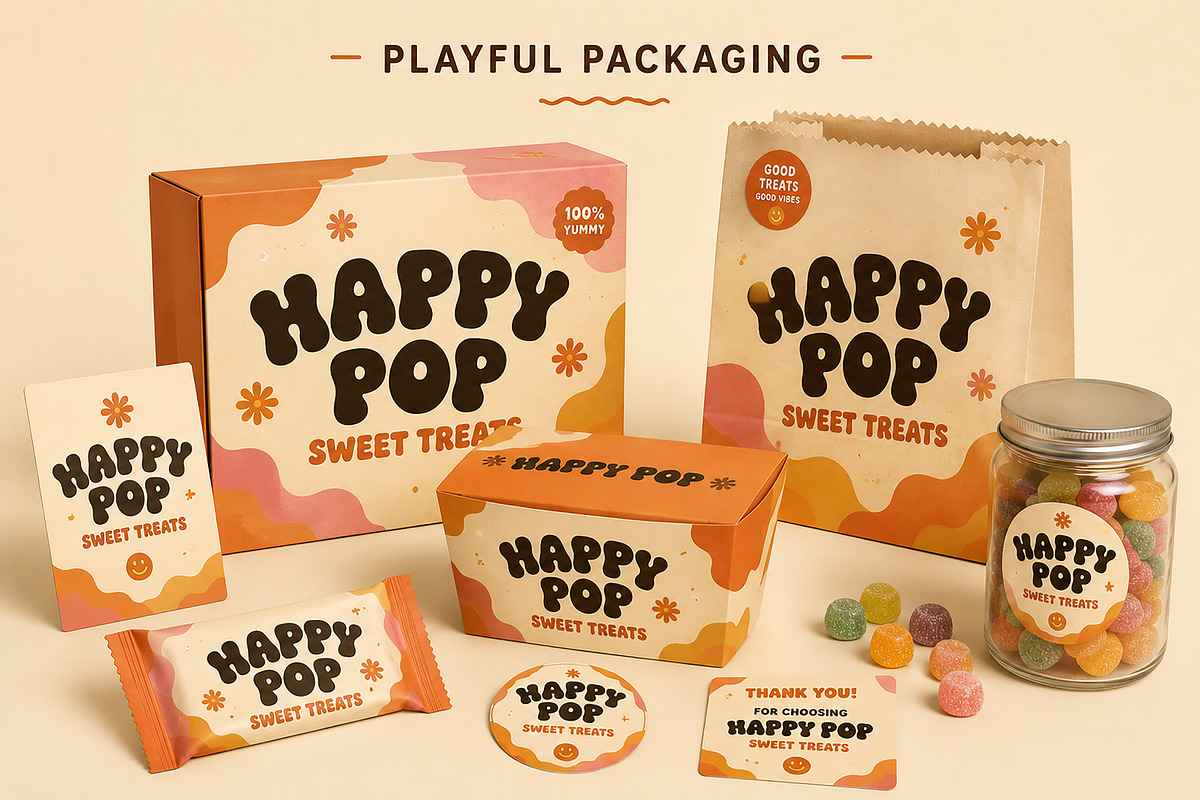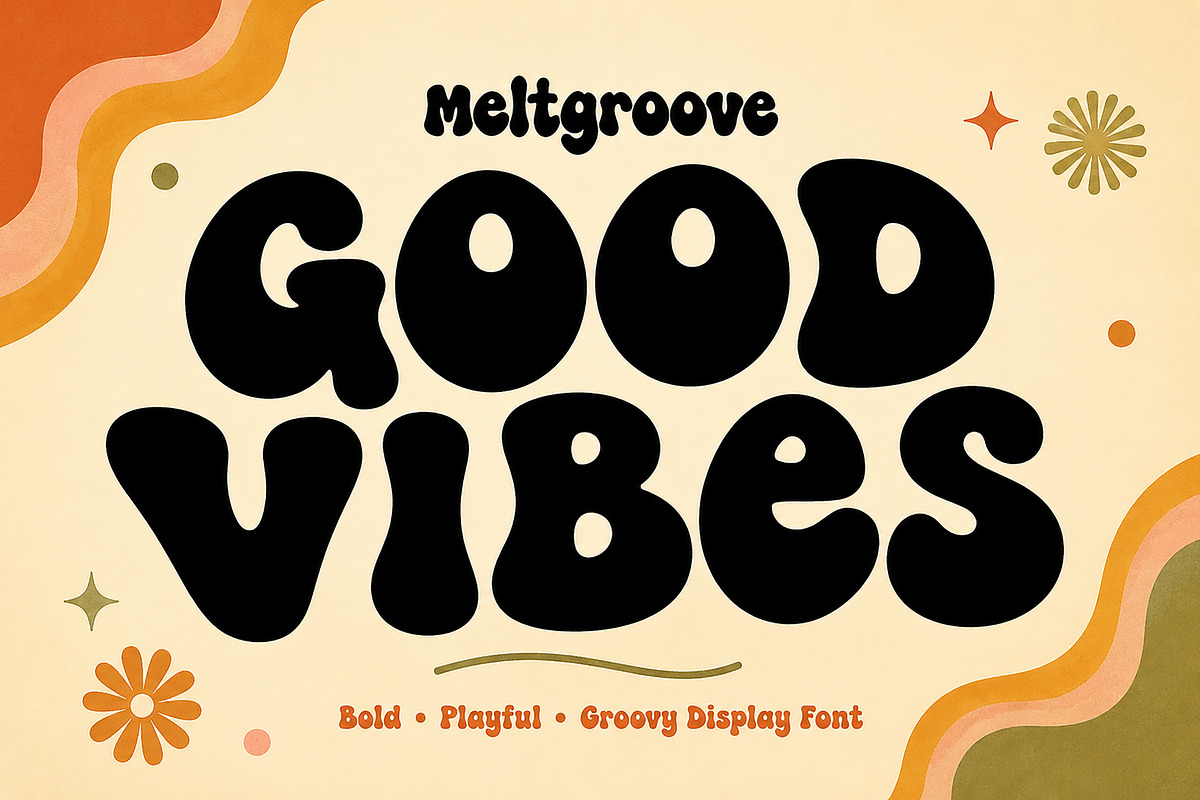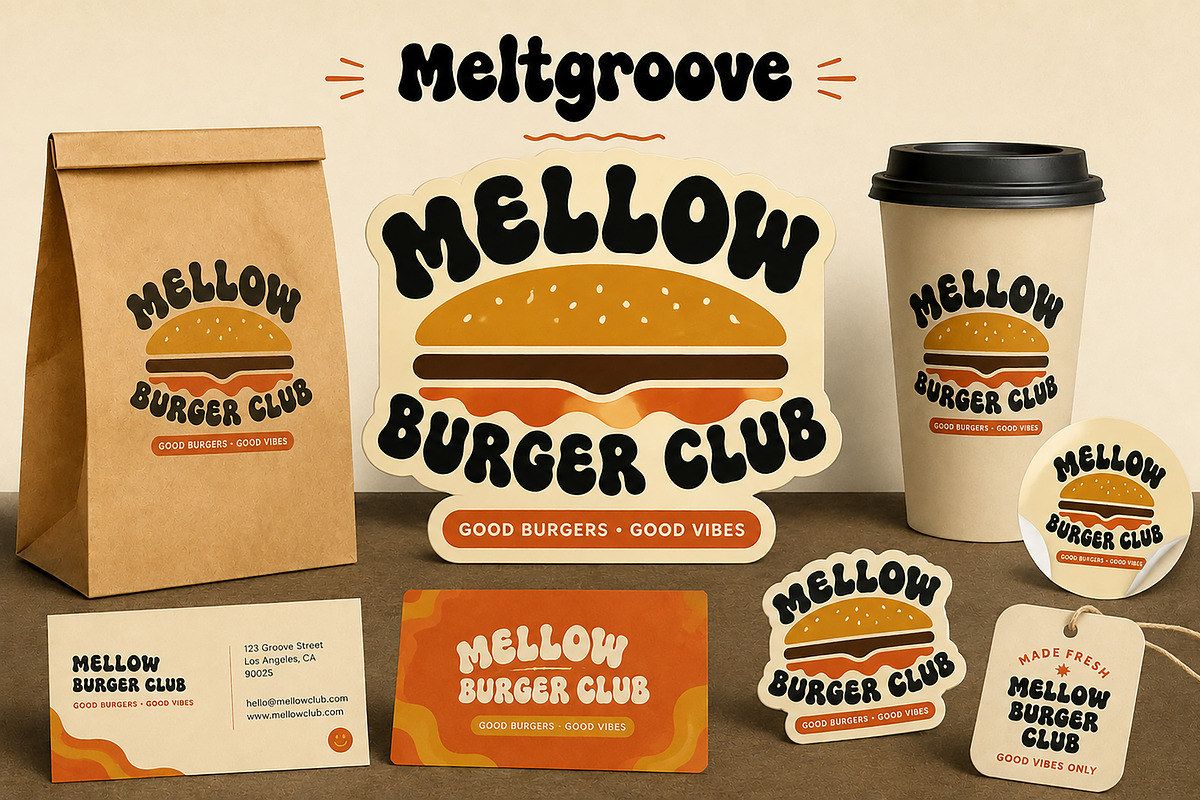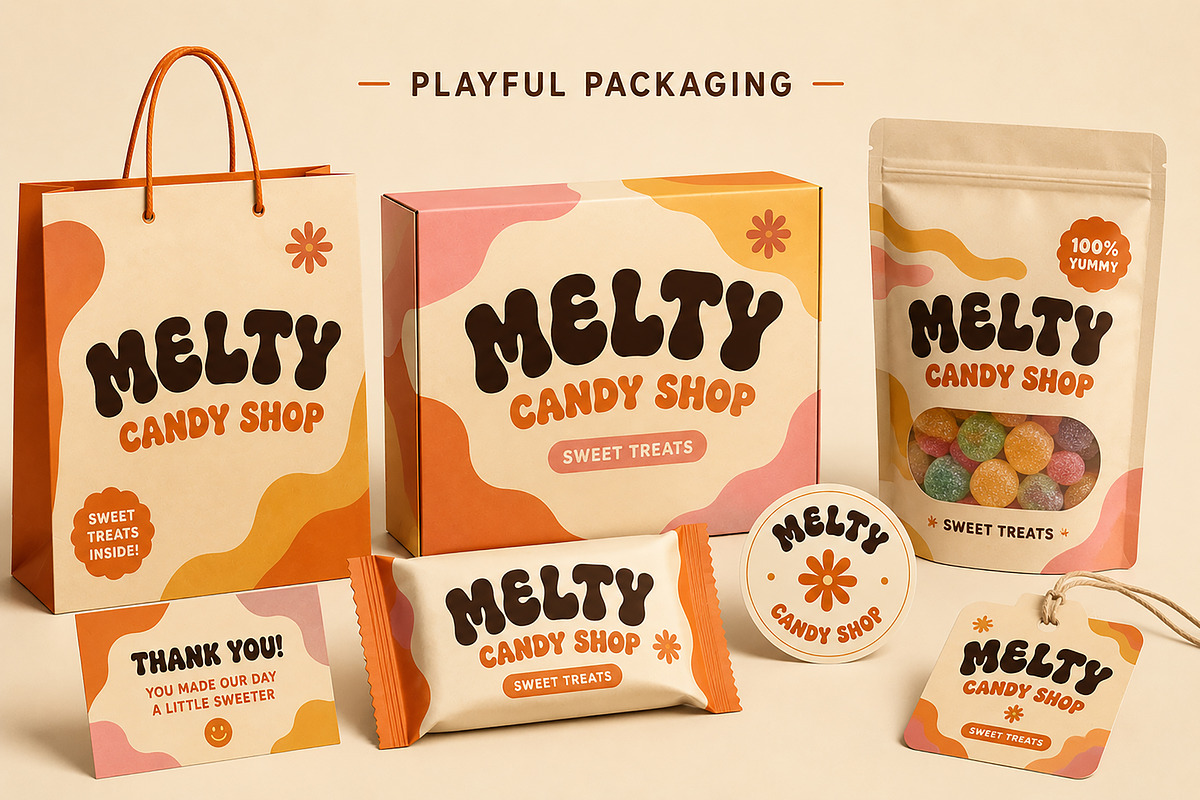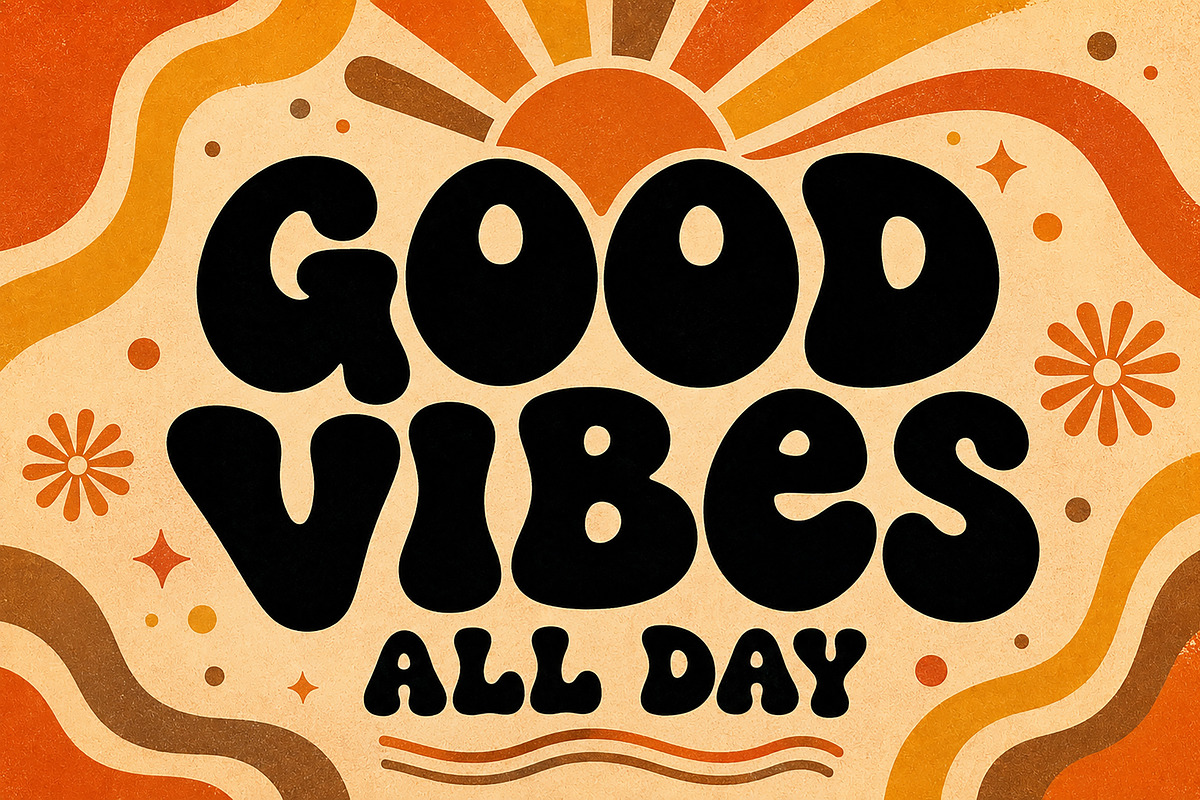
Meltgroove
Meltgroove – Groovy Bubble Display Font
Meltgroove is a bold and playful groovy display font designed to bring a fun, expressive, and retro-inspired personality to your creative projects. With its chunky rounded shapes, soft curves, organic forms, and bubbly letterforms, Meltgroove is made to instantly grab attention.
Perfect for designers looking to create eye-catching typography for branding, logos, packaging, posters, apparel, stickers, labels, social media graphics, product designs, invitations, and creative advertising.
Its friendly and energetic style works especially well for retro-inspired brands, food and beverage projects, candy packaging, kids-oriented designs, lifestyle products, merchandise, and fun editorial artwork.
Logo & Branding
Poster & Print Design
T-Shirt & Apparel Design
Stickers & Labels
Food & Beverage Branding
Candy & Dessert Packaging
Product Labels
Invitations
Advertising & Promotional Designs
Retro & Groovy Projects
Meltgroove is a great choice when you want your typography to feel bold, playful, friendly, nostalgic, and impossible to ignore.